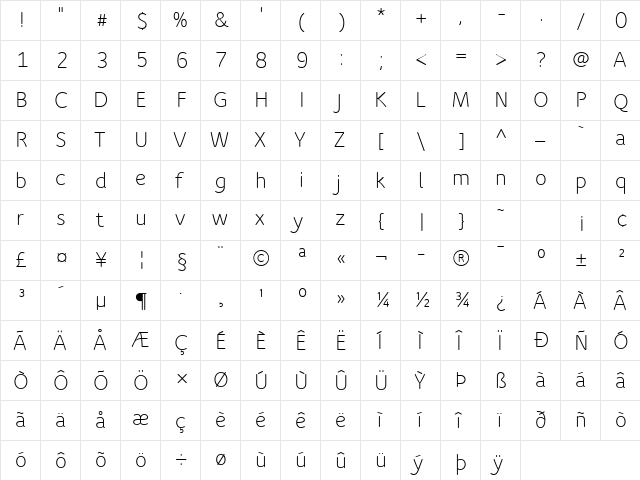
SpeakTF-Regular Regular
| Foundry | FSI FontShop International GmbH |
| Designer | Jan Maack |
Design Context for SpeakTF-Regular Typeface
SpeakTF-Regular offers clean, dependable letterforms without strong stylistic allegiance, making it a practical choice for designers who need flexibility.